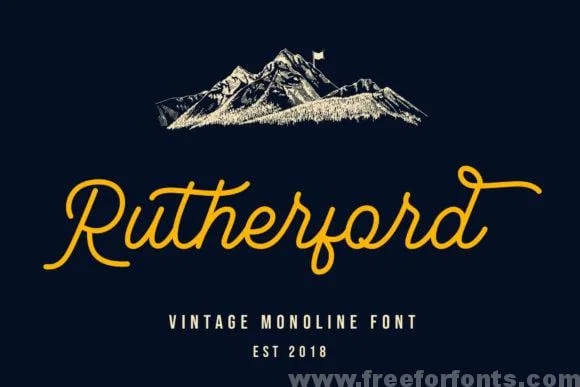
Rutherford Font
Rutherford Font is perfect for academic publications, scientific journals, university branding, educational materials, research institute logos, professional conference presentations, scholarly book covers, laboratory signage, intellectual property documentation, and distinguished institutional communications.
Rutherford Font is exciting because it embodies scholarly excellence and intellectual authority through refined letterforms that convey academic prestige and scientific rigor with distinguished elegance. This thoughtfully designed typeface combines traditional academic typography principles with contemporary readability standards, making it perfect for institutions and organizations that need to communicate credibility, intelligence, and scholarly distinction.
The Rutherford Font family includes multiple weights from Light to Bold, with corresponding italic versions and extended academic character sets. The font features classical proportions, scholarly styling details, and refined letterforms that create a comprehensive typographic system designed specifically for educational and research applications.
Rutherford Font Free Download provides access to premium academic typography that elevates scholarly communications and educational materials to professional standards. This expertly crafted typeface has been meticulously designed to honor traditional academic typography while ensuring optimal performance in modern digital and print applications. The font's authoritative character and intellectual appeal make it ideal for universities, research institutions, and educational publishers.
The academic distinction of Rutherford Font makes it an exceptional choice for educational institutions, research organizations, and scholarly publishers that need typography capable of communicating intellectual authority and academic excellence. The font's refined character helps establish immediate associations with scholarship, research credibility, and educational quality that appeal to students, faculty, and academic professionals.
Universities, research institutes, and educational publishers consistently choose Rutherford Font for its ability to convey scholarly sophistication and academic authority through typography. The font excels in applications where establishing intellectual credibility and educational excellence are essential to institutional positioning, making it particularly effective for academic journals, research publications, and educational materials targeting scholarly audiences.
This font's comprehensive character set includes academically-styled letterforms, scholarly numerals, professional punctuation marks, and specialized symbols necessary for scientific and mathematical typography composition. The careful attention to academic typography standards ensures authentic scholarly appearance while maintaining contemporary functionality for Rutherford Font Free Download across all educational and research design applications.